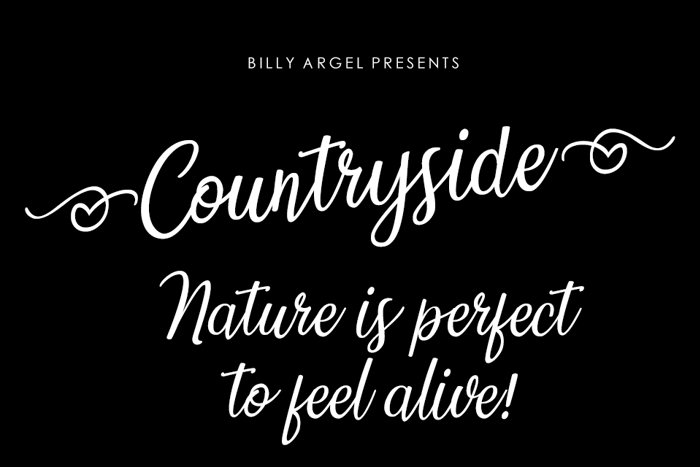
Countryside Font
are the swirly hearts included in the download? how do I get them?
Hi! I've been trying to do the swirly hearts as well. When I use the brackets you describe, it's not the hearts. What am I doing wrong? I did download the font. Could I be missing some fonts? Thanks!
to make the hearts at the beginning and the end you have to use these brackets [ ]
Cute!!!
Hi!, do you know why I can't see the number on this font?